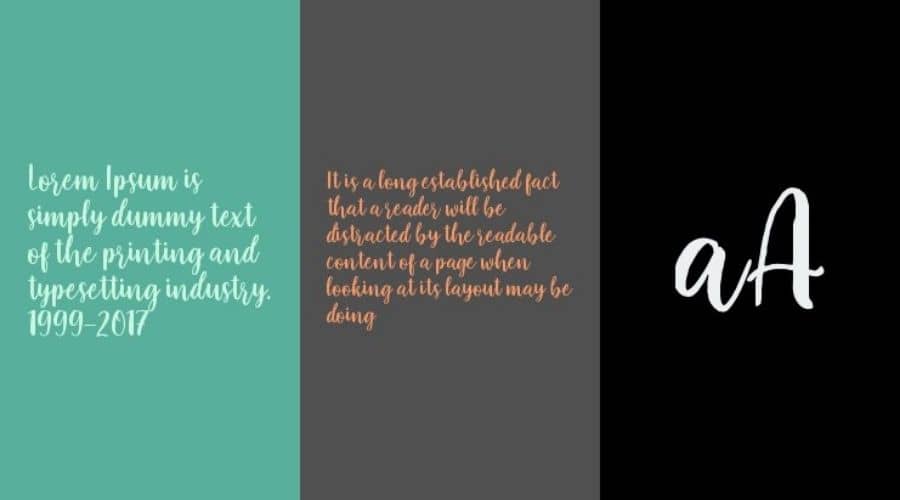
Faradisa Script is a premium script and handwritten typeface. Fajar Gunawan produced and shared the Font, which is free to download and use for personal purposes. On July 4, 2018, the Font was made public. All uppercase and lowercase letters and a few special characters are included in the free version. Faradisa Script is a script font that works on all platforms, including PC, Mac, Linux, iOS, and Android. This Font comes in a variety of styles. Faradisa Script is the font family for this Font. This typeface belongs to the Regular sub-family. This Font is only available in Version 1.000. Fargun Studio is the name of the company that created the Font. This typeface can be downloaded in a simple and rapid manner. Before installing the fonts, you must first extract them from the ZIP or RAR file, then: Windows 10/8/7/Vista/XP/Vista/Vist Install the Font by right-clicking on it. OS X (Macintosh Operating System): Double-click the font file to install it. Select “Install font” from the drop-down menu. The Font contains incredible features, including Numbers, Punctuation, Symbol, and Multilingual Support. The Font comes in two different formats: OTF and TTF.
The Faradisa Script can be used to create unique designs, covers, shop and store names, and logos. Faradisa Script is also ideal for branding projects, homeware designs, product packaging, and as a classy text overlay on any backdrop image. Faradisa Script Download Font is ideal for logos, branding, invitations, stationery, wedding designs, logos, business cards, covers, t-shirts, social media posts, and more. It will also be utilized to generate a stunning image and text in a variety of colors and styles.